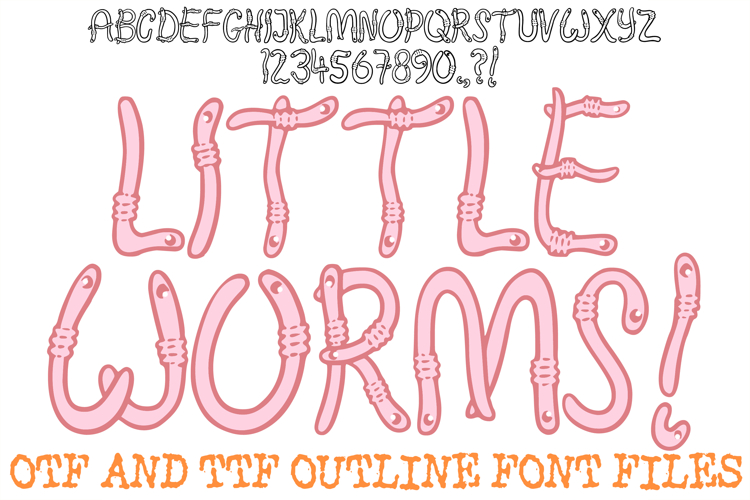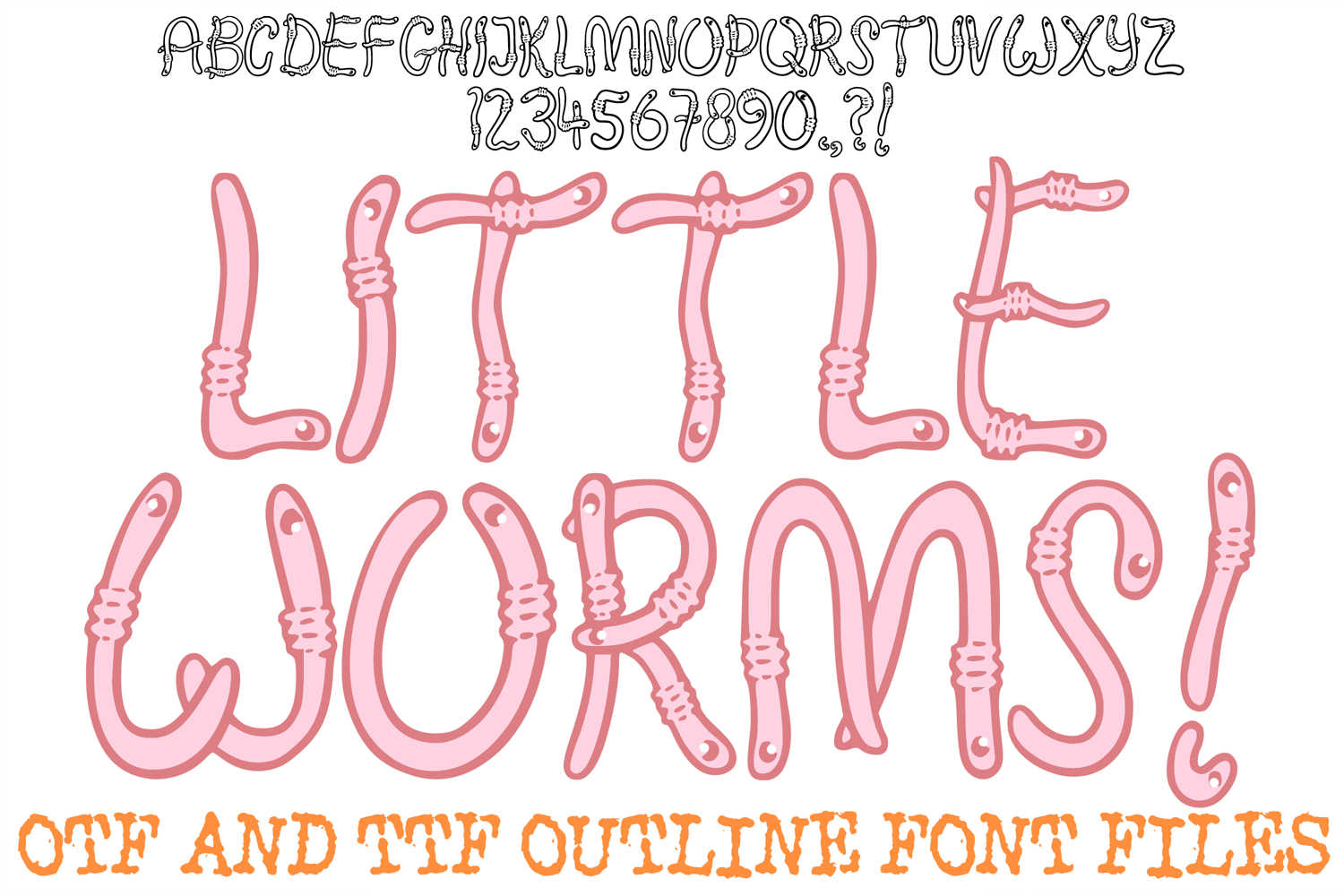
Little Worms Font Hand Drawn Comic Wiggly Lettering ABC
The Little Worms Font is a playful and wiggly display typeface that transforms every character into a flexible, segmented garden creature. Featuring hand-drawn details like tiny eyes and textured body rings, this font is the ultimate creative tool for science-themed classroom decor, children’s book titles, garden-related branding, and whimsical "creepy-crawly" party invitations.
Each letter is meticulously designed with an organic, flowing silhouette that mimics the natural movement of a worm, giving your text a sense of life and humor. Whether you are a teacher creating fun educational worksheets or a crafter designing unique apparel for nature lovers, the Little Worms Font delivers a charming, artisan-sketched aesthetic that is both fun and memorable.
Illustrative Character Detail: Every letter (A–Z) and number (0–9) features tiny worm eyes and segmented body textures for a true "critter" feel.
Wiggly organic Flow: The slender, curved silhouettes provide a unique, hand-drawn movement that standard fonts can't replicate.
Versatile Outline Design: The clean black outlines are perfect for coloring activities, sublimation projects, or layering over bright, earthy tones.